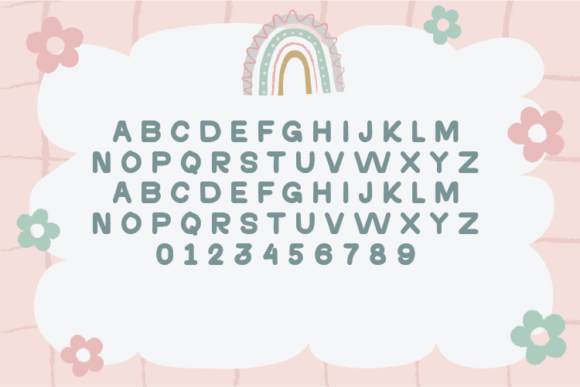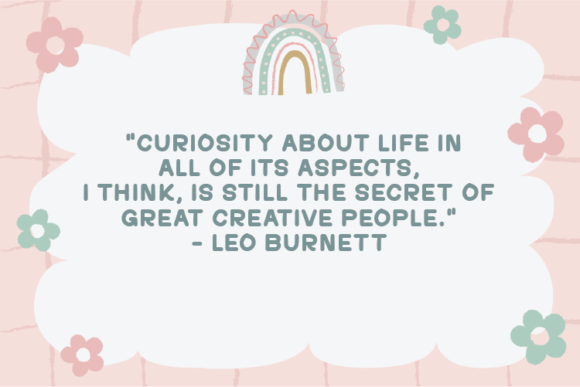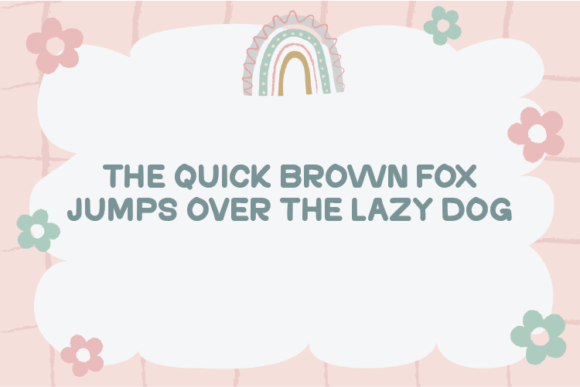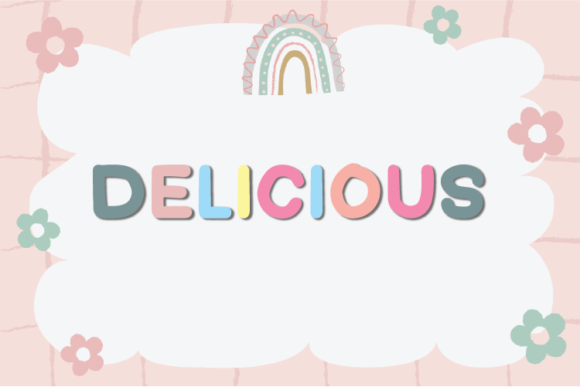
Introducing Delicious Font: A Unique and Versatile Display Font
Are you tired of using the same old fonts for your designs? Look no further than Delicious Font, a natural display font that is sure to make your projects stand out. What sets Delicious apart from other fonts is its unique approach to character design. Unlike other fonts, Delicious was created without changing a single node in each character’s indentation, giving it a distinctive and eye-catching appearance.
The Story Behind Delicious Font
Delicious Font is a carefully crafted display font that is designed to add a touch of personality to any design project. The font’s creator aimed to create a font that was both unique and versatile, making it perfect for a wide range of applications, from quotes and notes to t-shirts and product design.
What Makes Delicious Font So Special?
So, what makes Delicious Font so special? The answer lies in its unique design approach. By not altering a single node in each character’s indentation, the font’s creator has managed to create a font that is both natural and distinctive. This approach gives Delicious Font a hand-crafted feel that is sure to add a touch of personality to any design project.
Uses for Delicious Font
Delicious Font is a versatile display font that can be used for a wide range of design projects. Here are just a few ideas to get you started:
- Quotes and Notes: Delicious Font is perfect for adding a touch of personality to quotes and notes. Whether you’re creating a inspirational poster or a personal journal, this font is sure to make your text stand out.
- T-Shirts and Apparel: Delicious Font is a great choice for designing t-shirts and other apparel. Its unique and eye-catching design makes it perfect for creating bold and eye-catching designs.
- Product Design: Delicious Font can also be used for product design, from packaging to branding. Its natural and distinctive appearance makes it perfect for creating unique and memorable designs.
Benefits of Using Delicious Font
So, why should you choose Delicious Font for your next design project? Here are just a few benefits of using this unique display font:
- Unique and Eye-Catching: Delicious Font is sure to make your designs stand out with its unique and eye-catching appearance.
- Versatile: Delicious Font can be used for a wide range of design projects, from quotes and notes to t-shirts and product design.
- Easy to Read: Despite its unique design approach, Delicious Font is still easy to read, making it perfect for use in a variety of contexts.
In conclusion, Delicious Font is a unique and versatile display font that is sure to add a touch of personality to any design project. Its natural and distinctive appearance makes it perfect for a wide range of applications, from quotes and notes to t-shirts and product design. Whether you’re a designer, crafter, or simply someone looking for a new font to add to your collection, Delicious Font is definitely worth checking out.